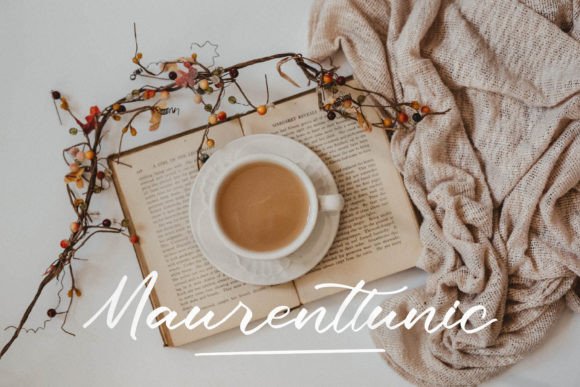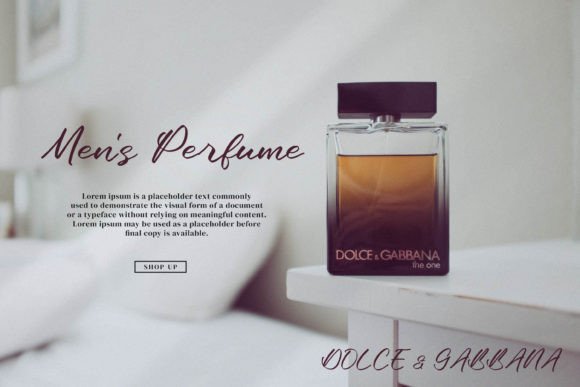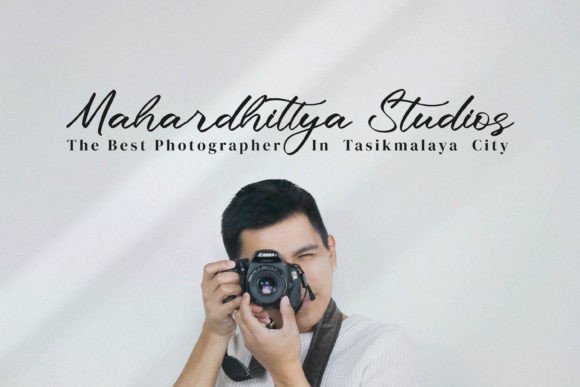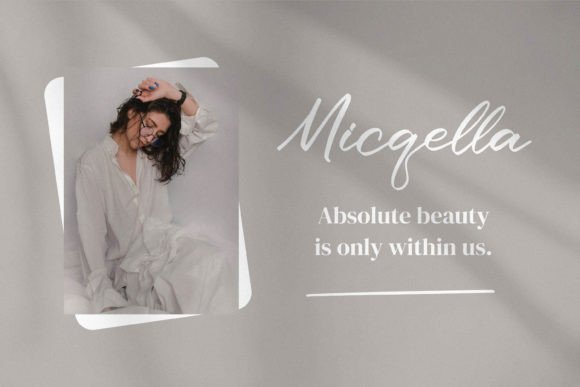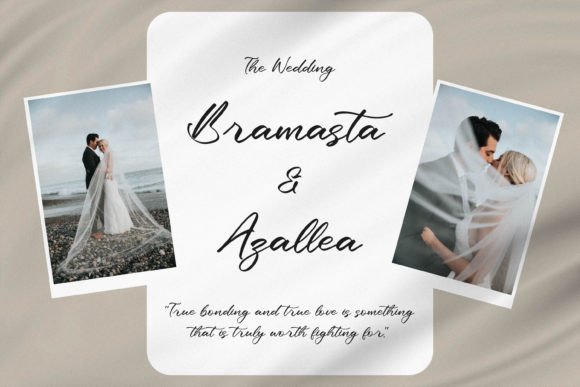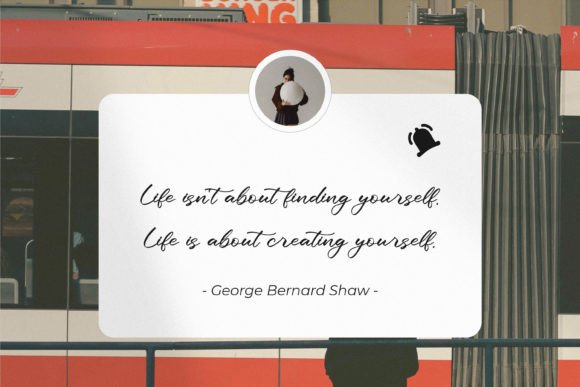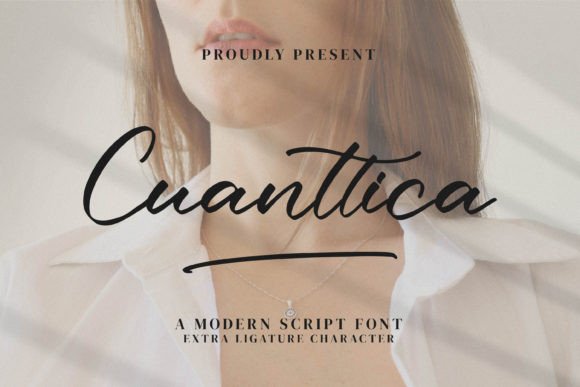
Introducing Cuanttica Font: Elevate Your Designs with Elegance and Sophistication
In the world of design, typography plays a crucial role in conveying the tone and personality of a project. For designers and crafters seeking to infuse their creations with a touch of luxury and sophistication, Cuanttica Font emerges as an exceptional choice. This beautiful and modern script font is poised to transform your designs, whether you’re working on logos, branding projects, homewares designs, product packaging, or a myriad of other applications that demand a premium aesthetic.
What Makes Cuanttica Font Stand Out?
Cuanttica Font is not just another addition to the vast library of typefaces available today. Its unique blend of elegance and modernity sets it apart, making it an invaluable asset for anyone looking to elevate their design work. Here are some key features that make Cuanttica a must-have in your font library:
- Versatility: Cuanttica’s versatility is one of its most compelling attributes. It can seamlessly adapt to various design projects, from the luxurious and sophisticated to the more casual and playful, depending on your creative vision.
- Elegance and Sophistication: The font exudes an air of elegance and sophistication, making it perfect for high-end branding, luxury packaging, and premium product designs.
- Readability: Despite its elegant and cursive nature, Cuanttica maintains excellent readability, ensuring that your message is conveyed clearly and effectively, whether used for headlines, body text, or quotes.
- Uniqueness: In a sea of script fonts, Cuanttica stands out with its unique character set and style, allowing your designs to capture attention and leave a lasting impression.
Applications of Cuanttica Font
The possibilities are endless with Cuanttica Font. Here are some of the many applications where Cuanttica can make a significant impact:
- Logos and Branding: Create memorable logos and branding materials that convey luxury, quality, and sophistication.
- Homewares Designs: Add a touch of elegance to your homewares designs, including ceramics, textiles, and other decorative items.
- Product Packaging: Elevate your product packaging to reflect the premium quality of your offerings.
- Mugs, T-shirts, and Merchandise: Design captivating merchandise that stands out, from custom mugs and t-shirts to tote bags and more.
- Quotes, Posters, and Prints: Create stunning quotes, posters, and prints that are not only visually appealing but also convey your message with elegance.
- Shopping Bags, Business Cards, and Stationery: Enhance your brand’s stationery and promotional materials with a sophisticated touch.
- Invitation Cards, Greeting Cards, and Labels: Design beautiful and unique cards and labels for special occasions and everyday use.
- Photography and Watermarks: Use Cuanttica for watermarks on your photography work or as a stylistic element in your photo compositions.
- Special Events: Create bespoke materials for weddings, galas, and other special events that require a touch of luxury and exclusivity.
Why Choose Cuanttica Font?
Choosing Cuanttica Font for your design projects means selecting a typeface that not only enhances the aesthetic appeal of your work but also communicates your brand’s values of quality, sophistication, and attention to detail. It’s an investment in your brand’s visual identity and an expression of your commitment to excellence.
Cuanttica Font is more than just a script font; it’s a design tool that can elevate your projects to new heights of elegance and sophistication. Whether you’re a professional designer or a crafter with a passion for creating beautiful things, Cuanttica offers the versatility, uniqueness, and luxury aesthetic you’re looking for. Add it to your font library today and discover the endless possibilities it brings to your design work.